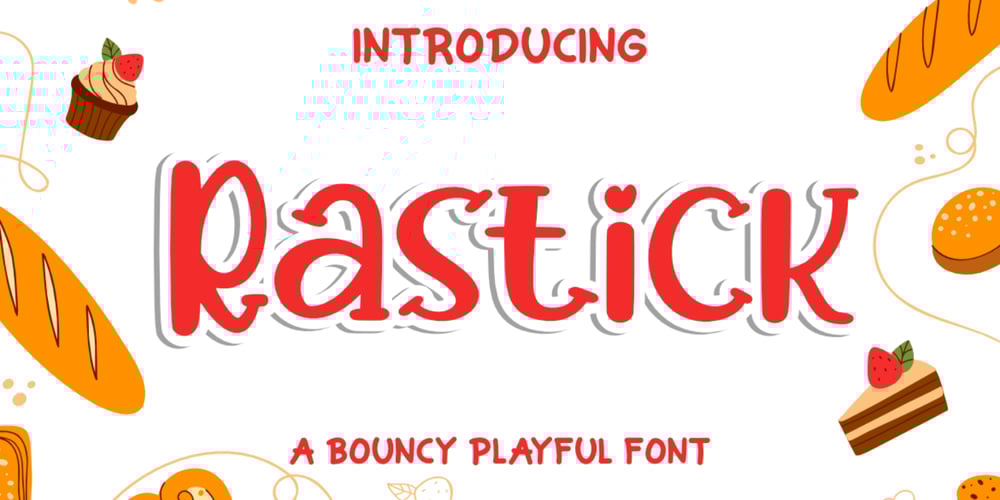
Rastick Playful Font Family was designed by Bayu Aji Fais Mursid and published by Bayuktx. Rastick Playful contains 1 styles and family package options. Rastick a Bouncy Playful Font, This font is made with a high premium quality level which you can use as flyers, quotes, posters, banners, packaging, merchandise, logotypes and much more.FEATURES :* Uppercase* Lowercase* Number* Punctuation* Multilingual* PUA Encode* OpentypeFILES INCLUDED :* RastickThank you